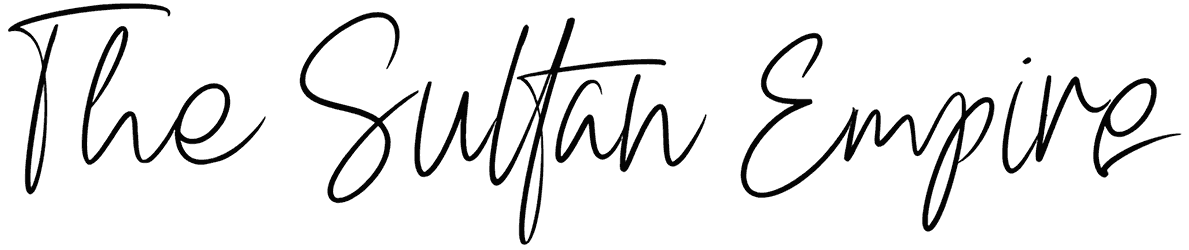
The Sultan Empire Font
The Sultan Empire is a noble script font that, due to its cursive style, can add a personalized touch to all of your creative ideas, including posters, business cards, wedding invitations, logos, or book covers. Since this handwritten font comes with a soft and sophisticated texture, it can convey a sense of professionalism, delicacy, precision, or drama.